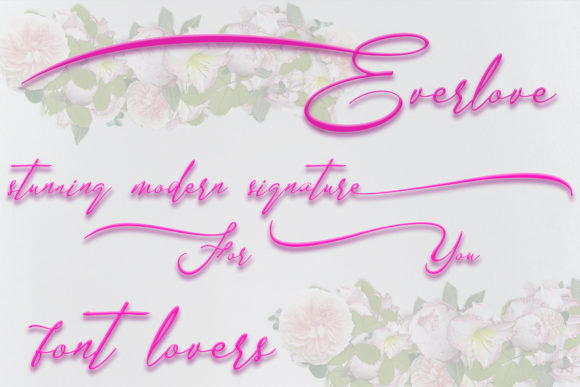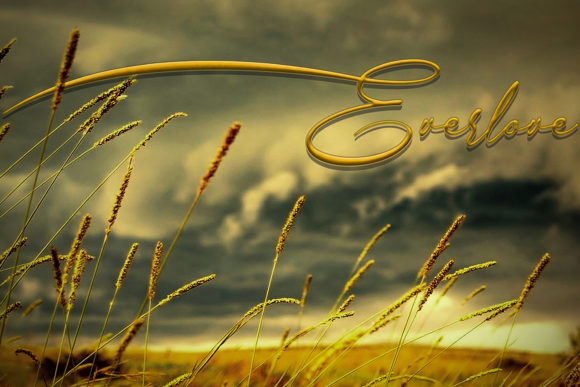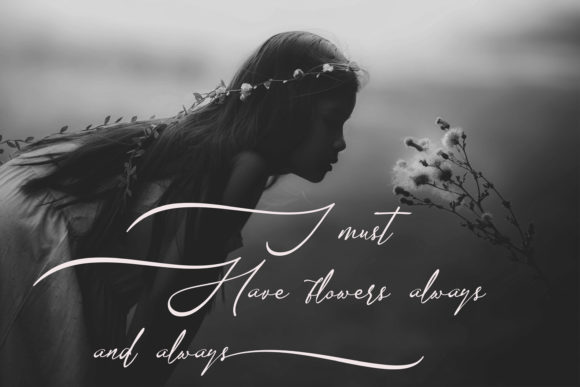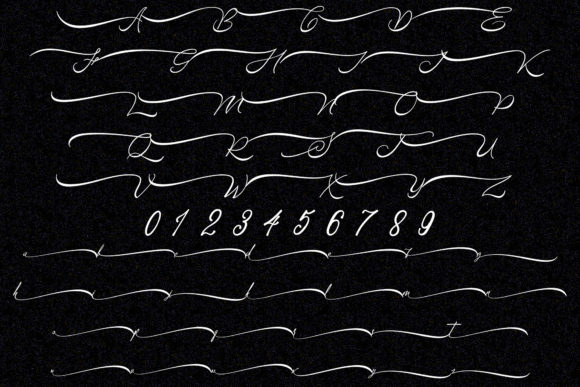
HomeScript FontsEverlove Font Script Fonts Everlove Font FacebookXPinterestWhatsApp Everlove Font Poster 2 Everlove Font Poster 3 Everlove Font Poster 4 Everlove Font Poster 5 About Everlove Font Everlove is a truly romantic and stunning script that will take your crafting project to the next level. DOWNLOAD ON CREATIVE FABRICAThis font is sold and delivered by Creative Fabrica. Font Canyon may earn a commission if you buy through this link. People also explored Halimatun Font Moonlite Font Apple Pie Font Pinky Yellow Font Groen Studio Font Midtown Script Font Osmosis Font Rockets Font Daisy Font 281 0 TagsEverlove Font Previous articleHamoni FontNext articleMaley Cylar Font LEAVE A REPLY Cancel reply Comment: Please enter your comment! Name:* Please enter your name here Email:* You have entered an incorrect email address! Please enter your email address here Website: Save my name, email, and website in this browser for the next time I comment. Personal Use Free Mullia Personal Use Free Read more about this font Machine House Personal Use Free Read more about this font Super Discount Personal Use Free Read more about this font The Winter Personal Use Free Read more about this font BLOG How to Cut Any Font on Cricut: Convert a Font to SVG (Free) Turn any font into a clean SVG so it cuts crisp on Cricut - a quick 3-step workflow using a free font-to-SVG tool. Where to Buy American Fonts Online in 2024 Top 7 Google Fonts Alternatives for Faster and Privacy-Friendly Web Design (2025) Free vs Paid Fonts: Why Investing in Premium Fonts Is Worth It